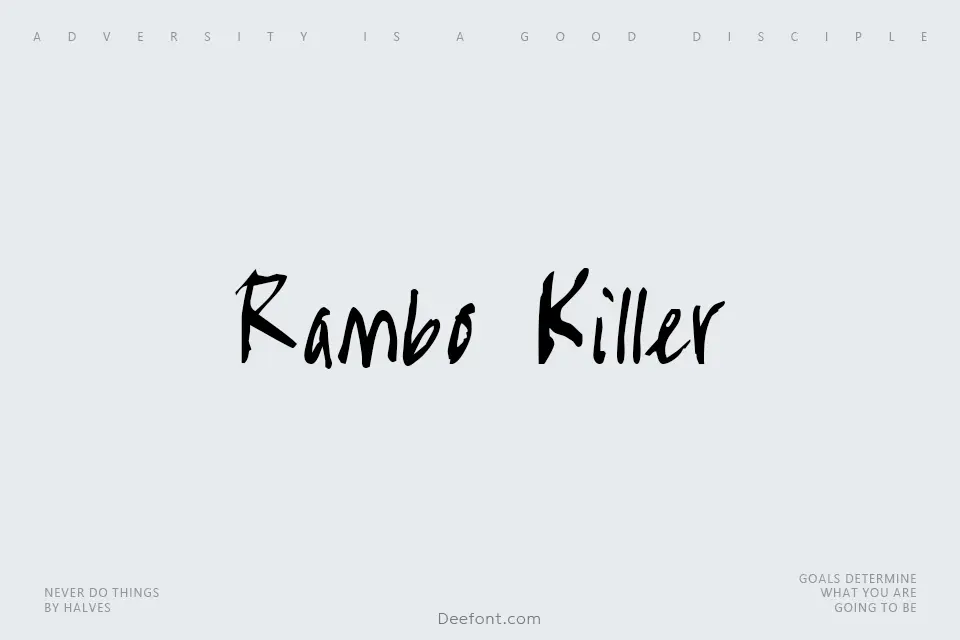
Rambo Killer Font
Rambo Killer is a striking handwritten marker-style display typeface designed for maximum visual impact. With its thick, jagged strokes and raw energetic character, this font channels classic horror film lettering and delivers authentic hand-drawn aesthetics. The aggressive brushwork and irregular letterforms create a menacing yet captivating presence, making it ideal for movie posters, Halloween campaigns, thriller book covers, horror-themed packaging, and shocking headline displays. Perfect for designers seeking bold, unconventional typography that commands attention and evokes intensity.